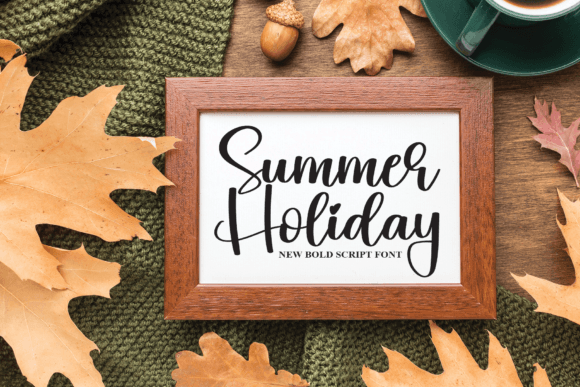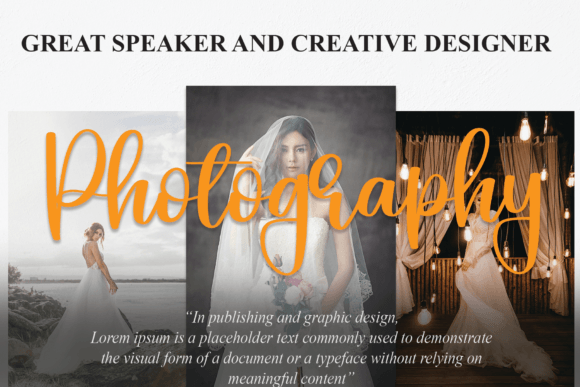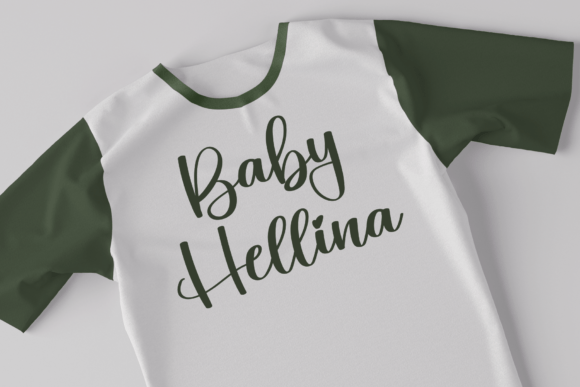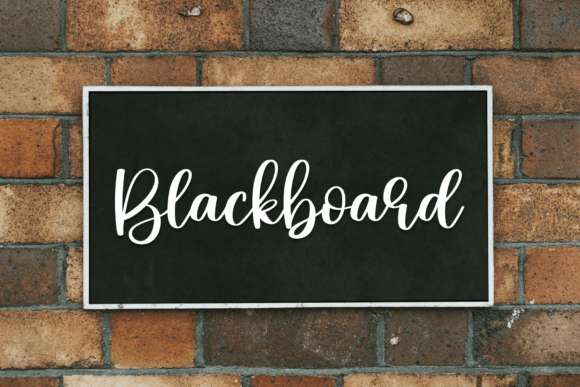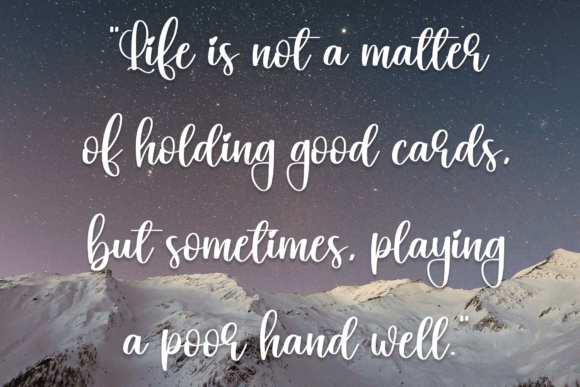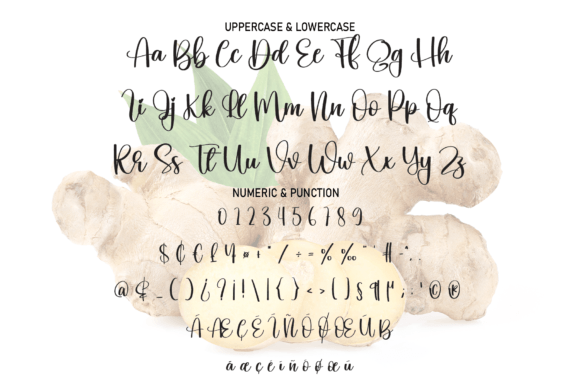
Ginger Font: Elevate Your Designs with Elegance and Sophistication
Are you on the hunt for a font that exudes elegance, sophistication, and a touch of modern flair? Look no further than the stunning Ginger Font. This exquisite handwritten font is meticulously crafted to capture the hearts of designers and crafters alike, making it a true favorite in the world of typography.
The Essence of Ginger Font
Ginger Font is a masterful blend of classic calligraphic influences and contemporary design elements. Its unique charm lies in its ability to evoke a sense of luxury and refinement while feeling fresh and modern. This versatile font is perfect for a wide range of projects, from wedding invitations and branding materials to packaging and digital content.
What Makes Ginger Font Stand Out?
- Exquisite Handwritten Design: Ginger Font boasts a beautiful, handcrafted design that sets it apart from more traditional fonts. Its flowing lines and delicate strokes create a sense of movement and fluidity, making it perfect for designs that require a touch of elegance.
- Classy Calligraphic Influences: The font’s calligraphic roots are evident in its refined letterforms and classic flourishes. These elements add a level of sophistication and luxury, making Ginger Font ideal for high-end branding and marketing materials.
- Contemporary and Fresh: Despite its classic influences, Ginger Font feels remarkably contemporary and fresh. Its modern twist makes it perfect for designers looking to create unique and eye-catching designs that stand out from the crowd.
- Versatility: Ginger Font is incredibly versatile, making it suitable for a wide range of projects and applications. Whether you’re designing a wedding invitation, a logo, or a website, this font is sure to impress.
Why Designers and Crafters Love Ginger Font
So, why has Ginger Font become a favorite among designers and crafters? Here are just a few reasons:
- Ease of Use: Ginger Font is incredibly easy to use, even for those with limited design experience. Its clean lines and intuitive letterforms make it simple to pair with other fonts and design elements.
- High-Quality Design: The font is meticulously crafted to ensure high-quality design and consistency. This attention to detail makes it perfect for professional designs and projects.
- Emotional Connection: Ginger Font has a way of evoking emotions and creating a connection with the viewer. Its elegant design and sophisticated feel make it perfect for designs that require a touch of luxury and refinement.
Tips for Using Ginger Font in Your Designs
To get the most out of Ginger Font, here are a few tips to keep in mind:
- Pair with Neutral Fonts: Ginger Font pairs beautifully with neutral fonts, such as sans-serif or serif fonts. This creates a striking contrast that adds visual interest to your design.
- Use for Headings and Titles: The font’s elegant design makes it perfect for headings and titles. Use it to create eye-catching headlines that draw attention and add sophistication to your design.
- Experiment with Colors: Ginger Font looks stunning in a range of colors, from rich jewel tones to soft pastels. Experiment with different colors to find the perfect combination for your design.
In conclusion, Ginger Font is a true gem in the world of typography. Its exquisite handwritten design, classy calligraphic influences, and contemporary feel make it a versatile and sophisticated font that’s perfect for a wide range of projects. Whether you’re a designer, crafter, or simply someone who appreciates beautiful typography, Ginger Font is sure to capture your heart and elevate your designs to new heights.